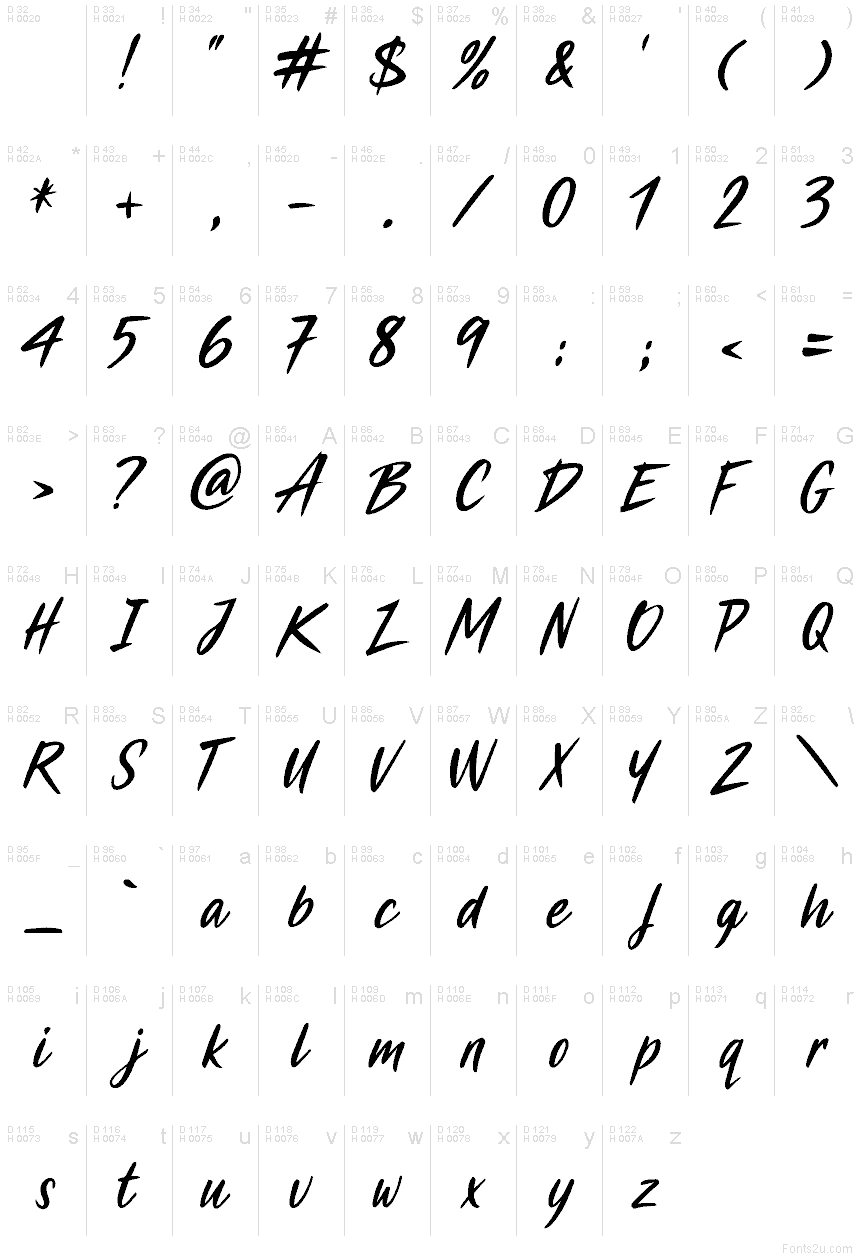
Crushed Strike
Crushed Strike font by BlackFridayFont FMF is a free handwritten script typeface. Its slick, inky strokes snap forward with a confident slant, skipping the messy texture that bogs down many scripts while keeping just enough brush bite to feel alive. Letters link smoothly, spacing stays tidy, and the rhythm is quick and readable—great when you want swagger without sacrificing clarity.
Using Crushed Strike, headlines and wordmarks carry punch, while shorter copy keeps its grip on legibility. It shines on apparel logos, product packaging, cafe menus, social posts, event flyers, and signature-style branding. This free font also works beautifully for quote graphics and stickers. Pair it with a clean, neutral sans to let the brush script lead, and give it a touch of extra size to show off those energetic strokes.